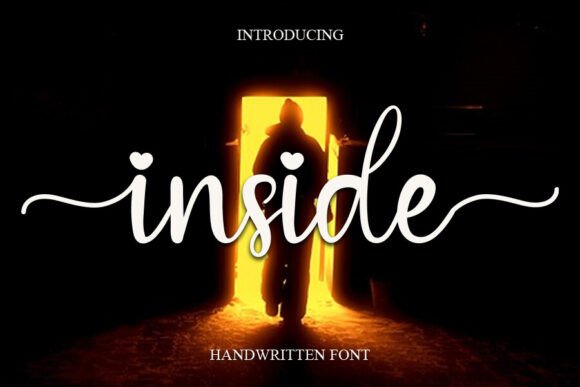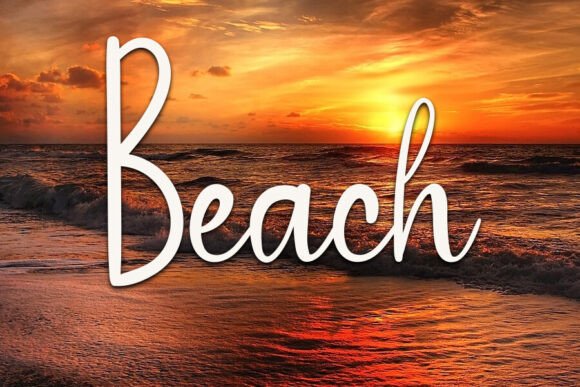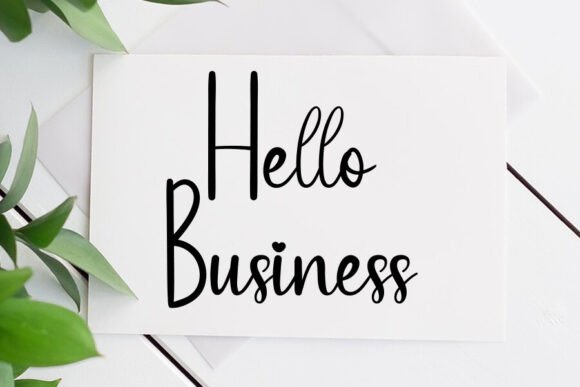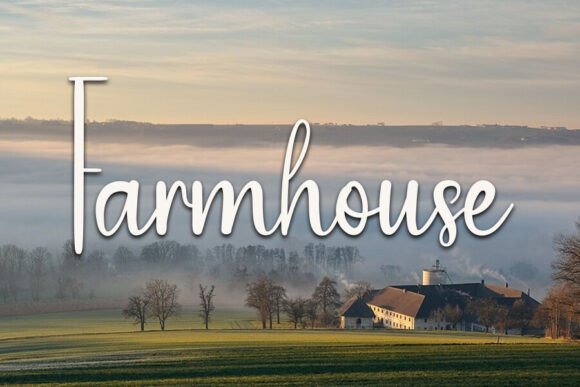
Inside Font: Elegant Handwritten Calligraphy for Wedding Design
About the Inside Font
Let us introduce you to Inside Font, where timeless design meets modern craftsmanship. Inside is a trendy handwritten font with a contemporary atmosphere and impeccable form, inspired by timeless classic calligraphy. It will add elegance and class to any of your design projects.
Inside Font excels in short text applications such as logos, headlines, and short quotes where its elegant, handwritten style shines. It’s ideal for branding projects aiming for a sophisticated yet approachable feel, particularly for businesses in fashion, beauty, or the arts. Avoid using it for body text or lengthy paragraphs; its handcrafted nature makes extended reading challenging.
Pairing Inside Font with a clean sans-serif like Lato or Open Sans provides a strong contrast and enhances readability. For a more luxurious feel, consider pairing it with a classic serif like Garamond or Didot. A touch of a delicate script font can add further flair, but should be used sparingly to avoid overwhelming the design.
Its core personality is sophisticated and friendly, conveying both elegance and approachability. This makes it suitable for brands wishing to project a sense of quality and personality without appearing overly formal or stuffy.